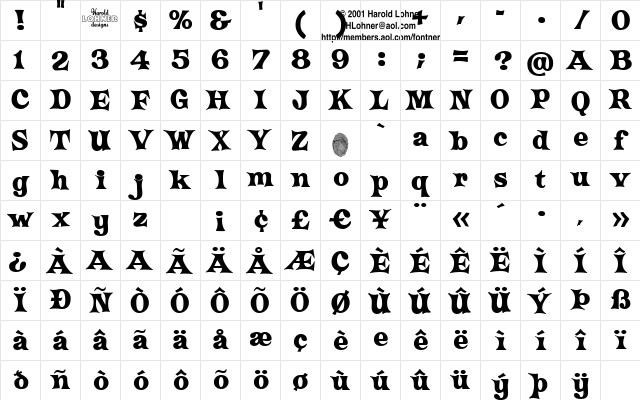
Crazy Harold Regular Free Font
Crazy Harold Regular
Design Context for Crazy Harold
Crazy Harold is a composed and adaptable typeface that performs quietly and consistently across a wide range of design contexts.